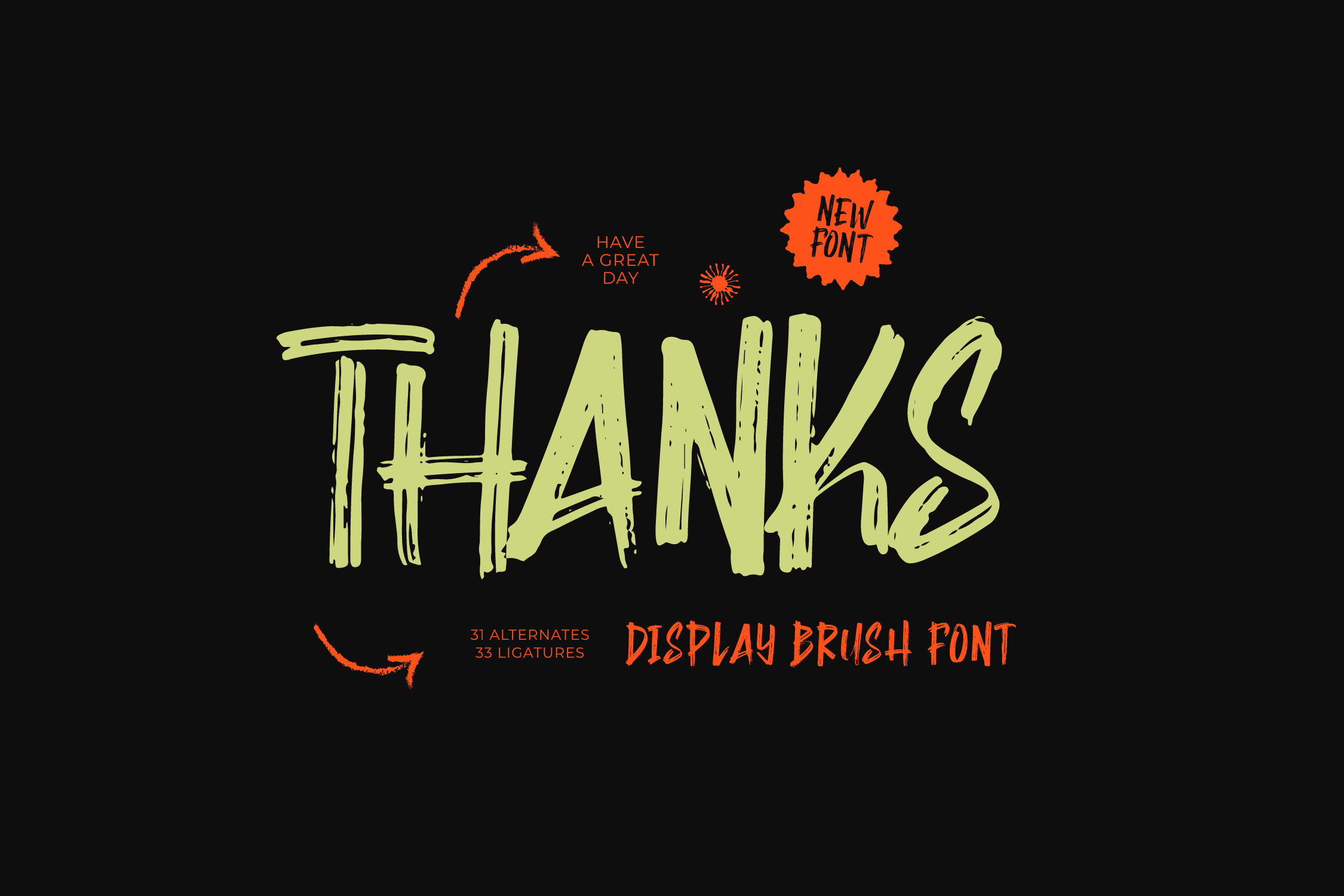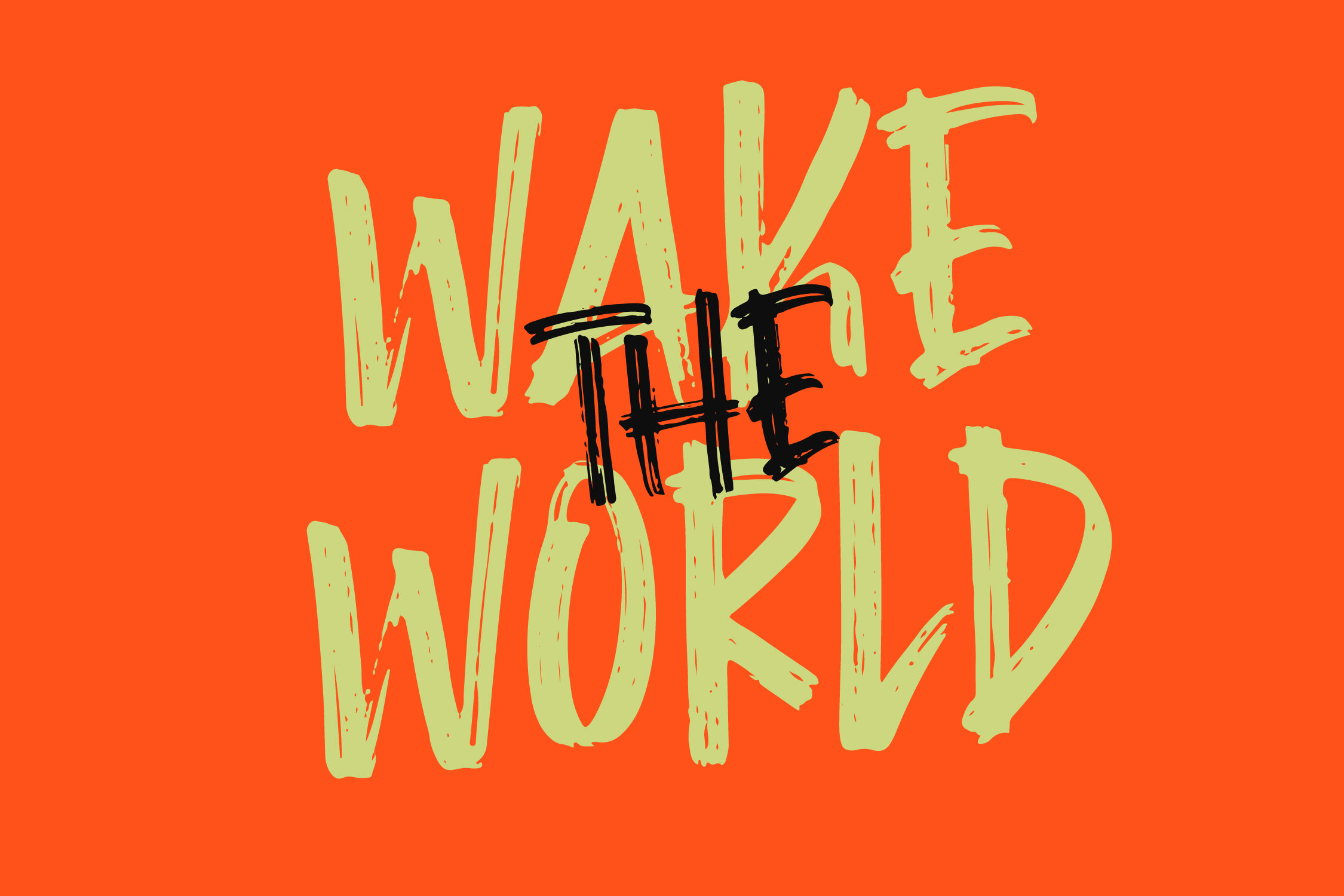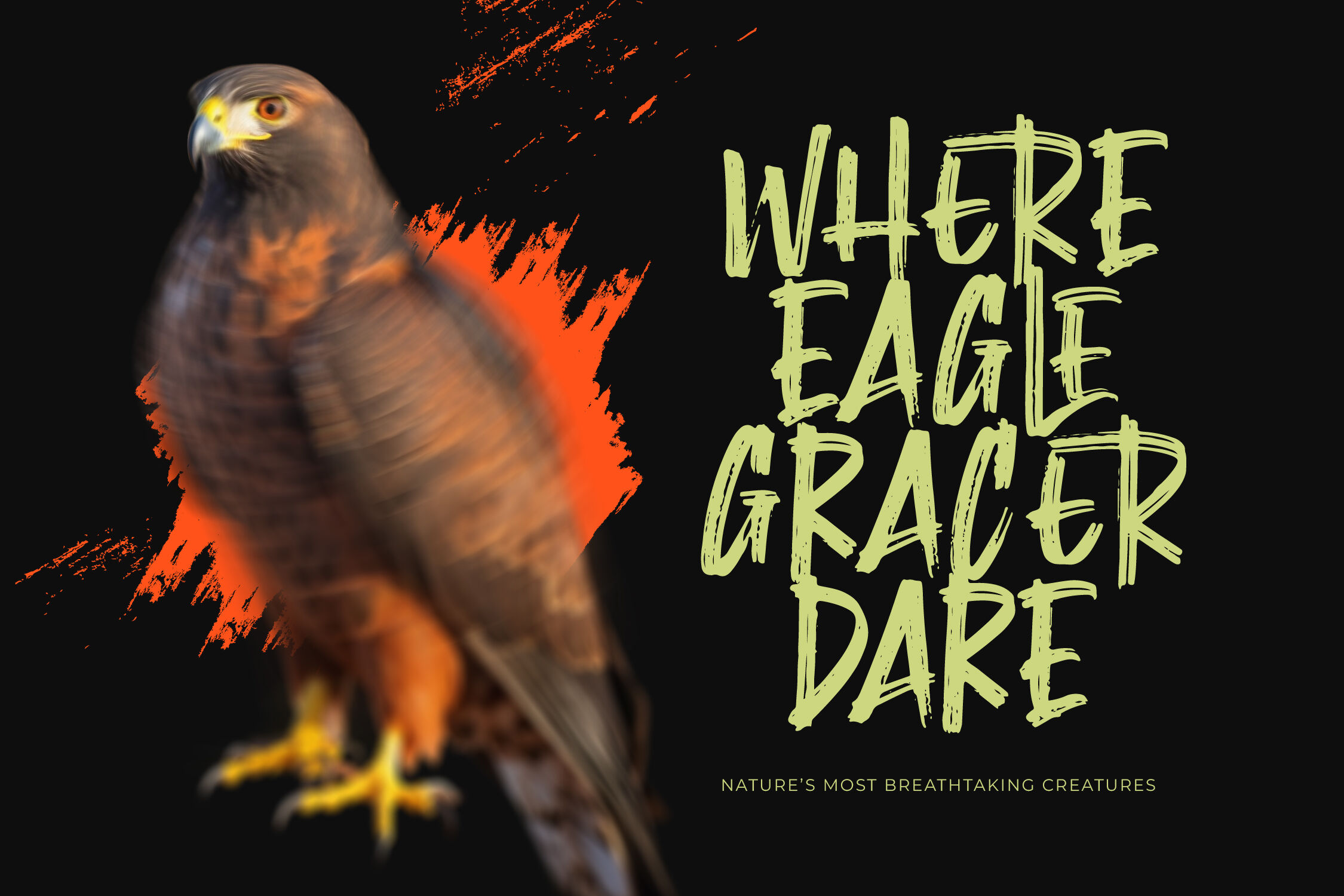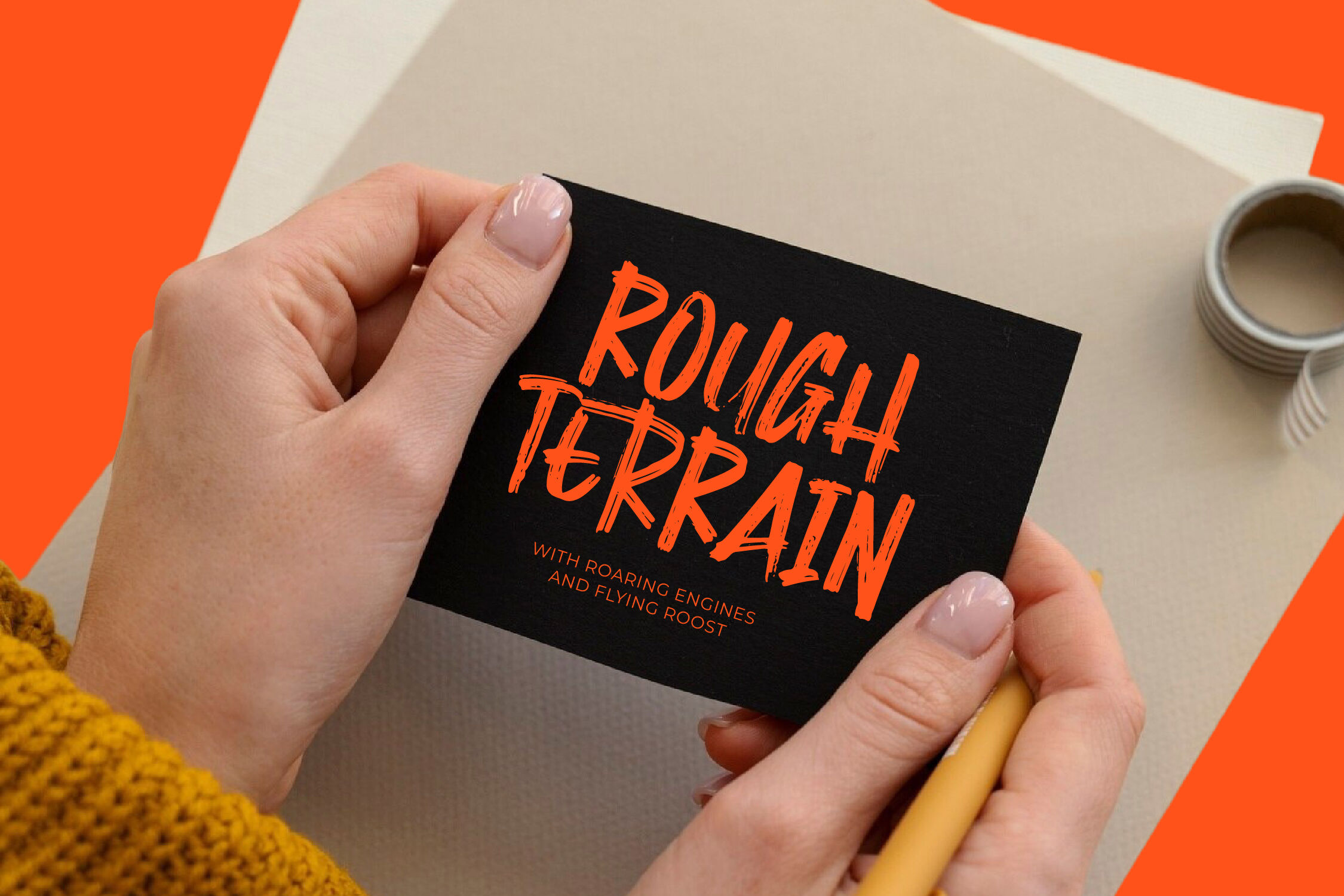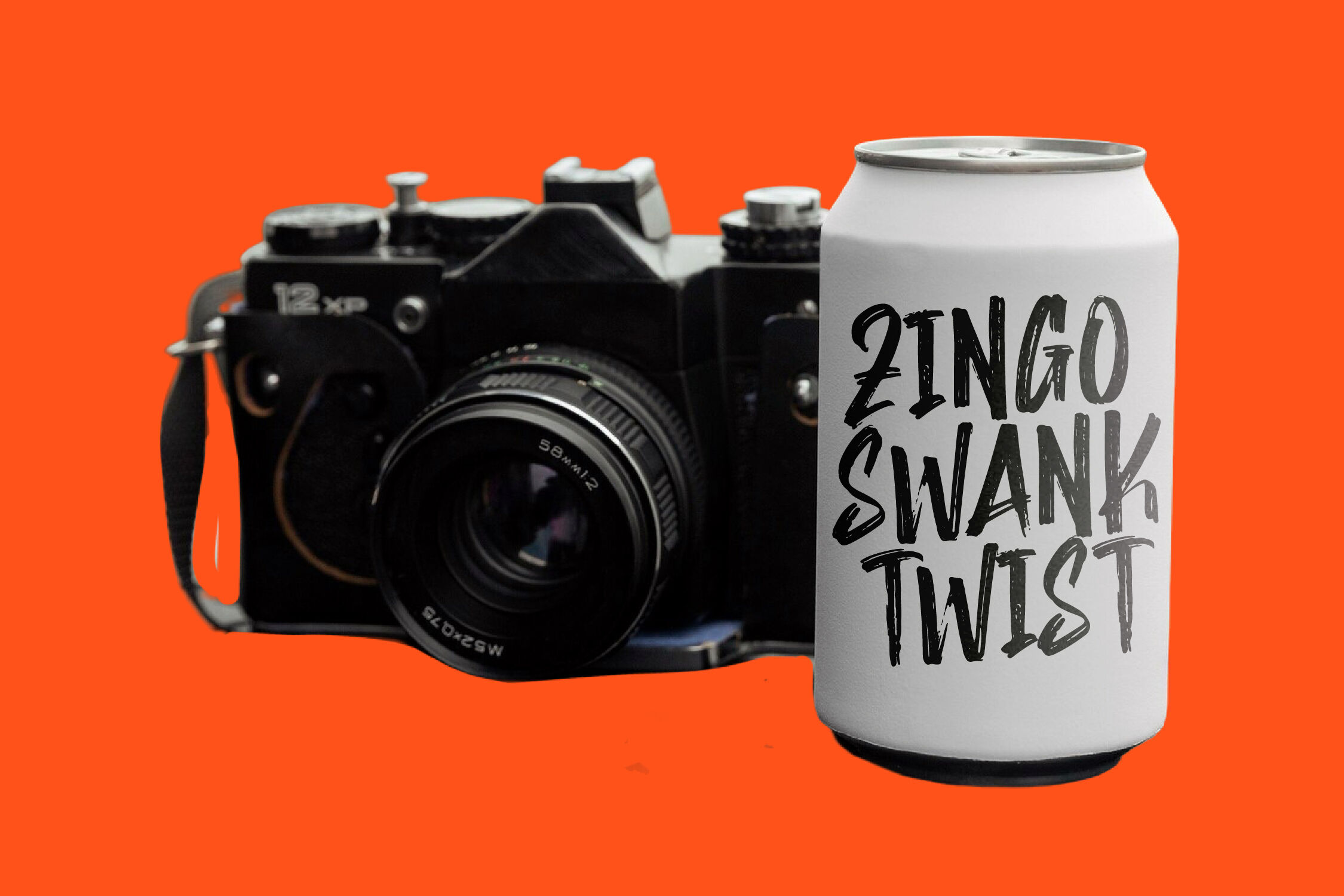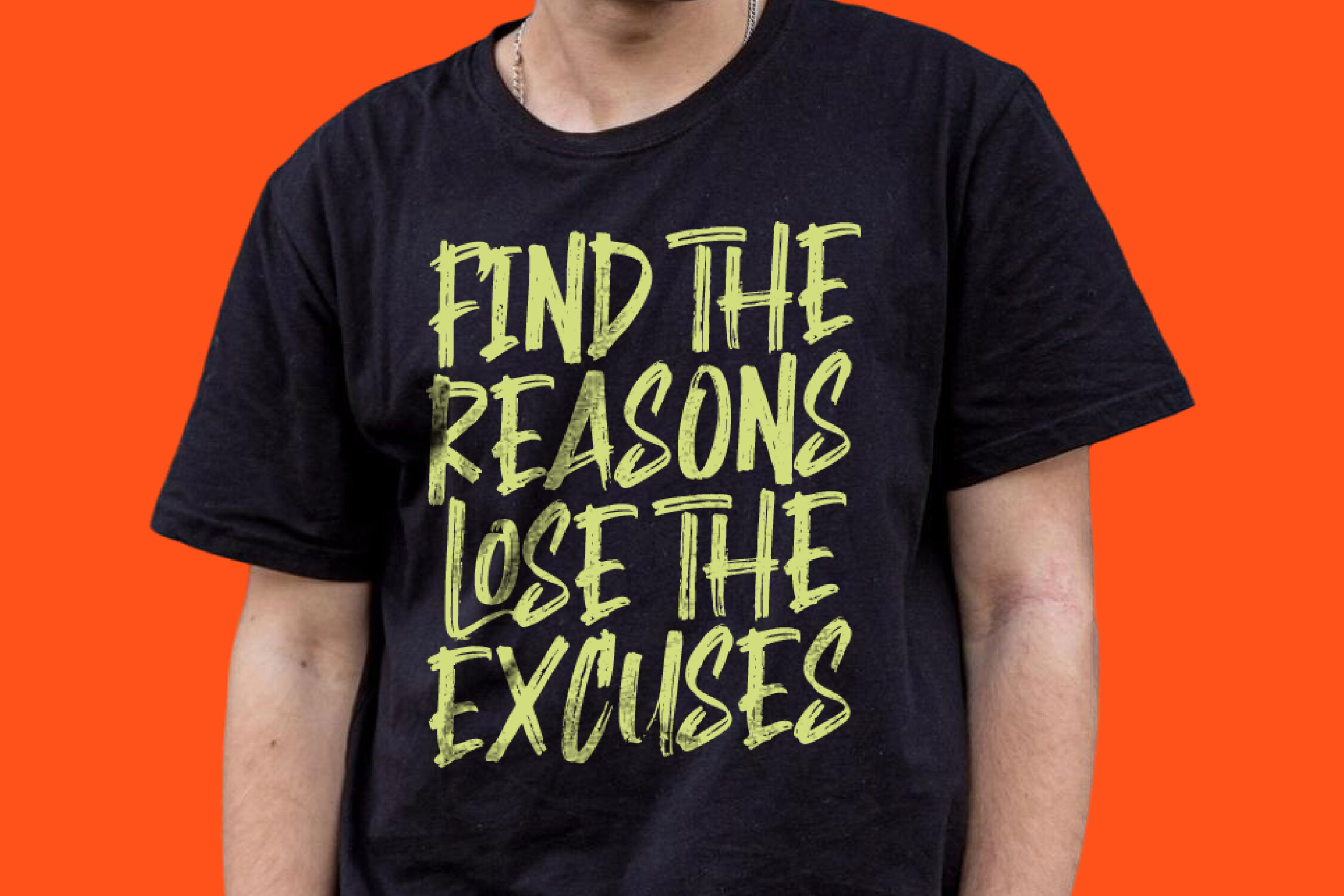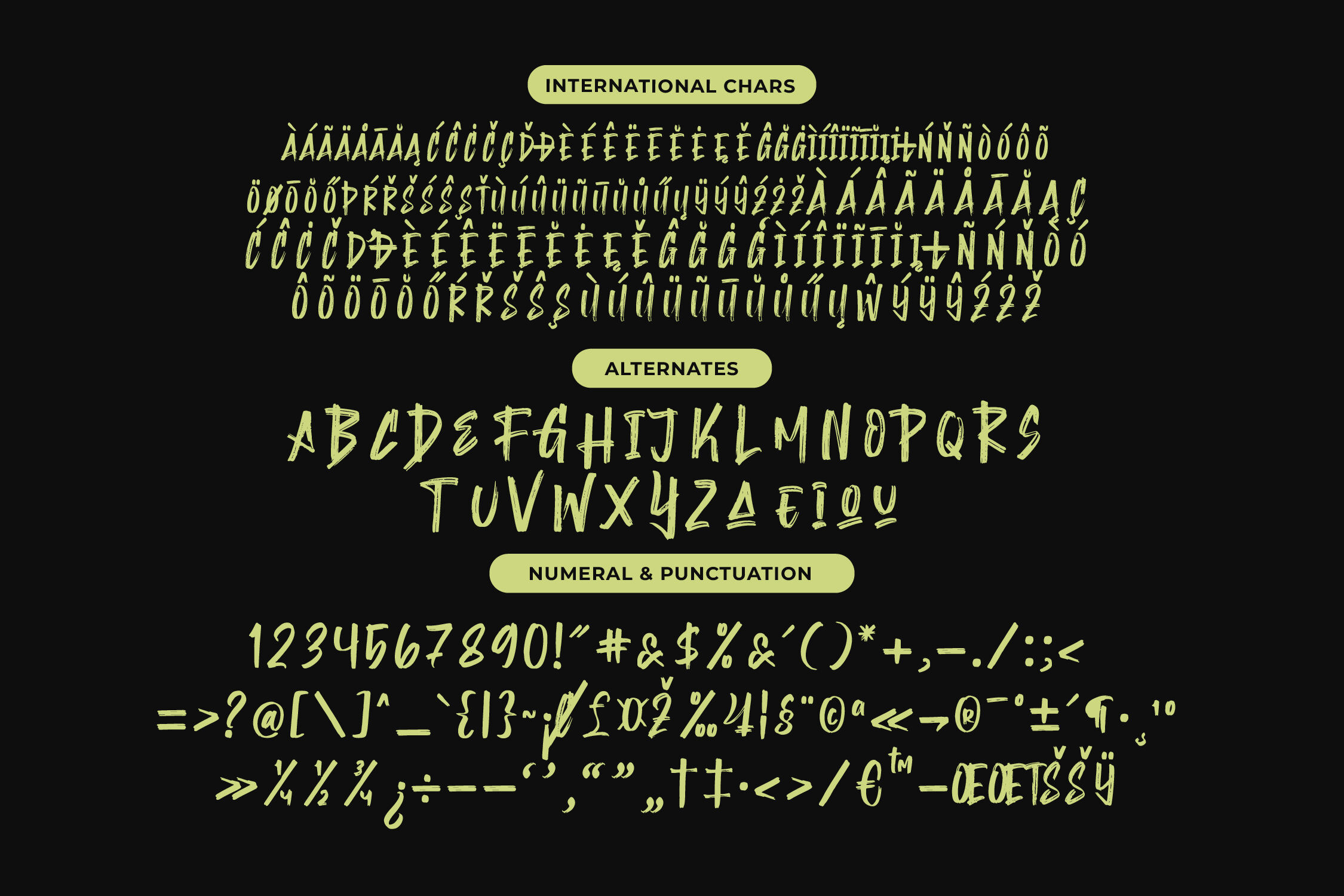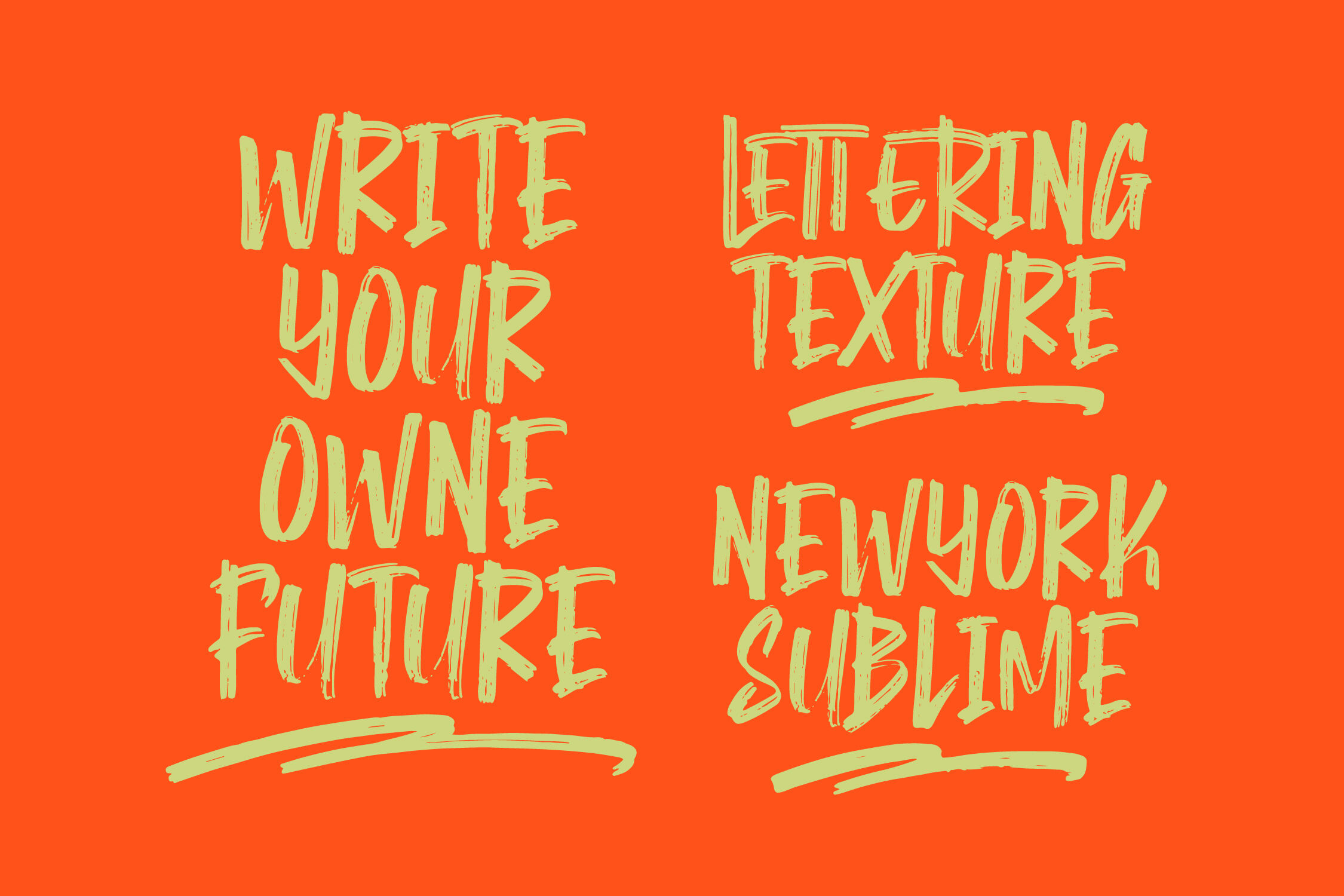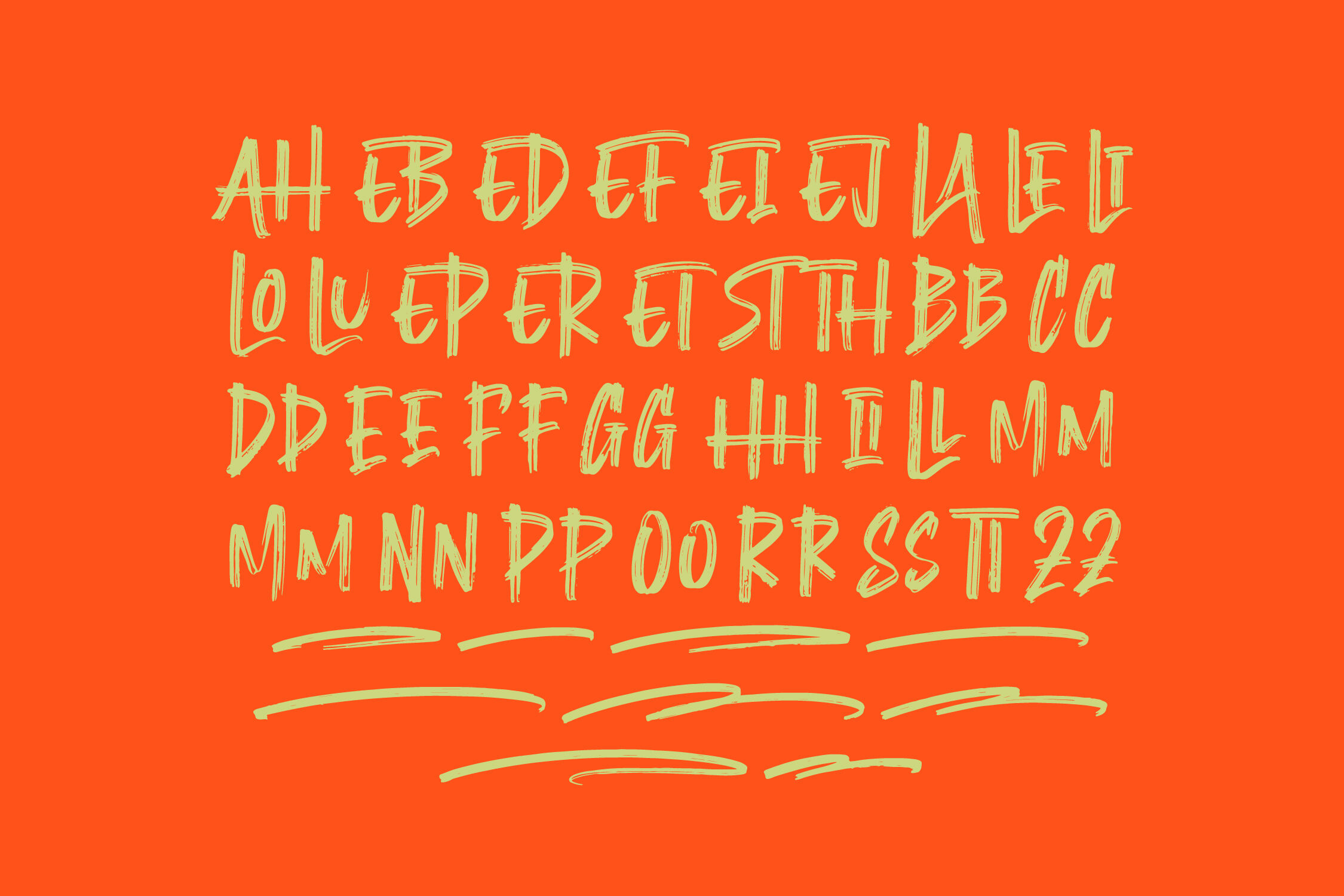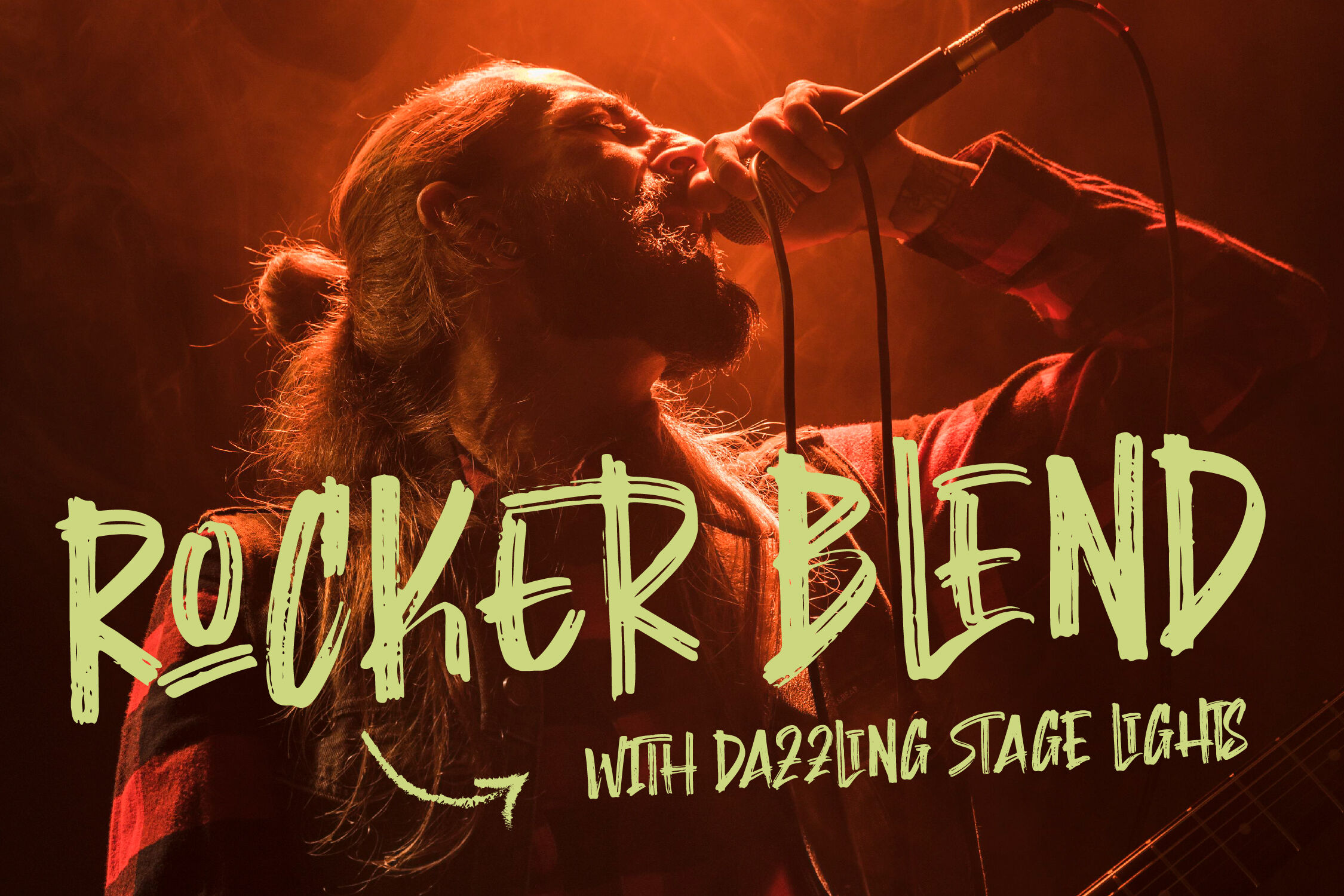
Montha Stroner - Display Brush Font
Montha Stroner - Display Brush Font , from Letterena, Montha Stroner is a bold display brush font with a raw, energetic, and authentic hand-drawn style. Featuring 33 ligatures and 31 alternates, this typeface brings a strong street-art and urban character, making it ideal for posters, music covers, apparel, branding, and creative digital art. With its expressive brush strokes and rough texture, Montha Stroner perfectly captures a rebellious yet stylish visual tone.